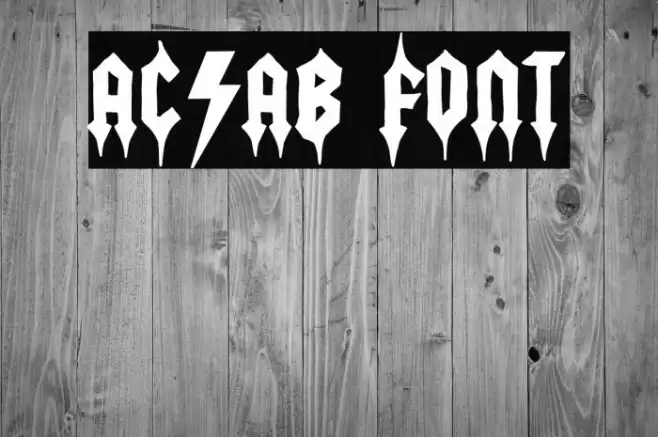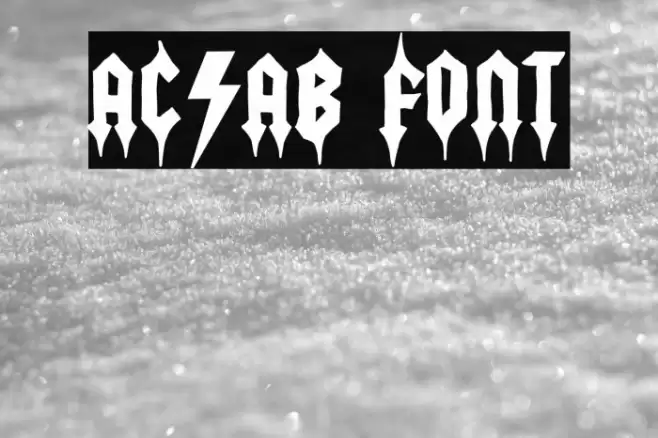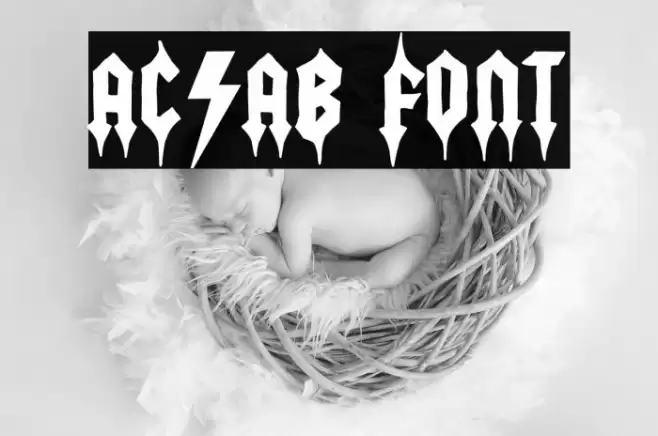
AC+AB Font
AC+AB Description
This font features a bold, gothic style with sharp, angular edges and a distinct medieval influence. The characters are heavily stylized, with pointed serifs and a dramatic flair that evokes a sense of mystery and intensity. The uppercase and lowercase letters maintain a consistent design, creating a cohesive look across the alphabet. Numbers and special characters are equally bold and intricate, adding to the font's overall impact. This typeface is ideal for projects that require a strong, eye-catching aesthetic, such as band logos, posters, or themed event materials.
A bold, gothic font with sharp, angular edges and a medieval flair from Uncategorized fonts.
- Proposed Projects: Ideal for band logos, posters, themed events, and any project needing a dramatic, gothic aesthetic.
- Overall Style: Gothic, Decorative
- Use Case: Logos, Posters, Headlines